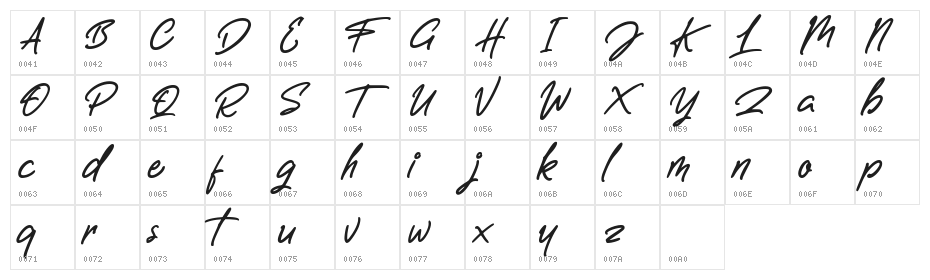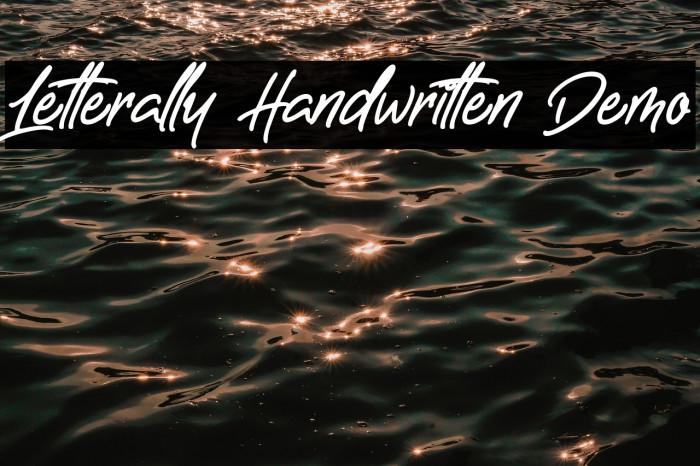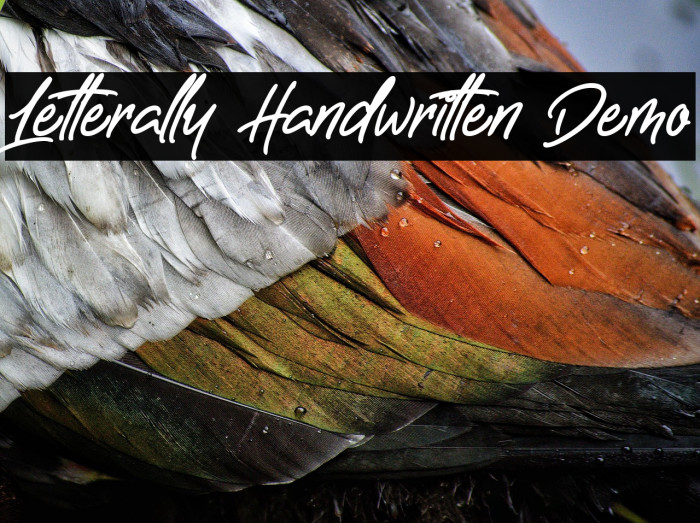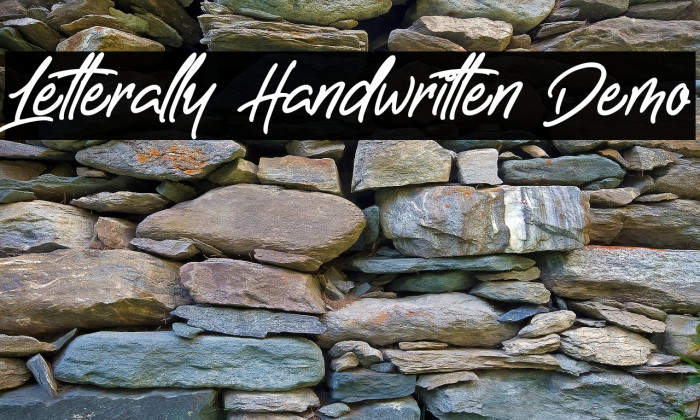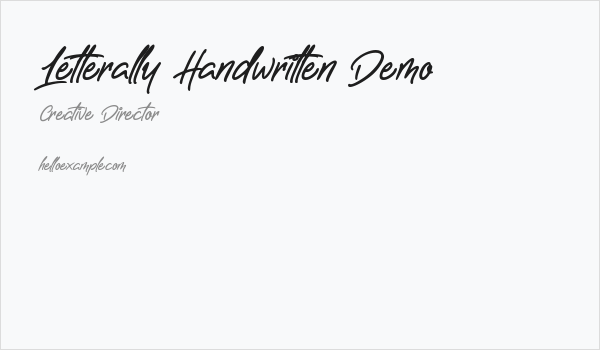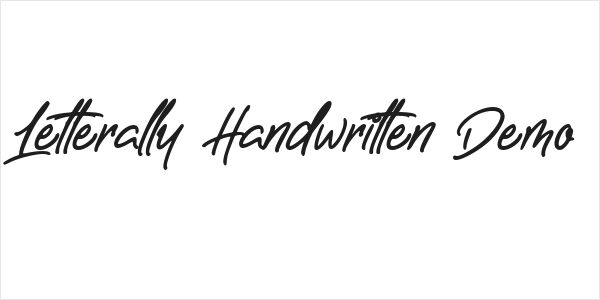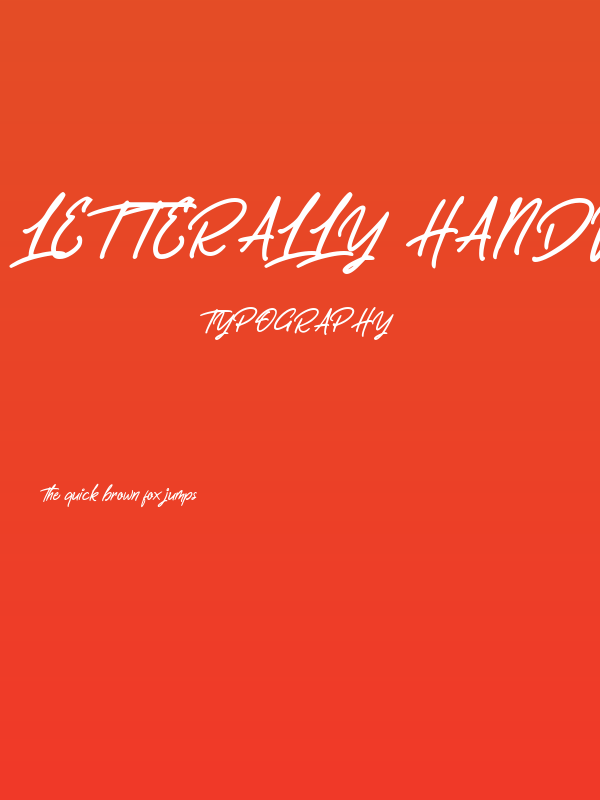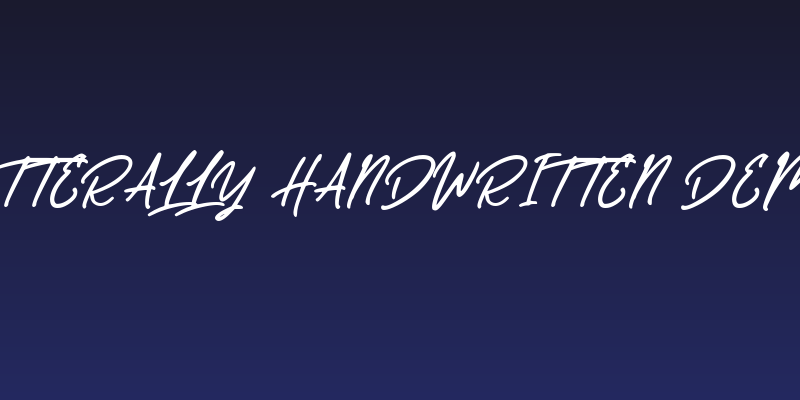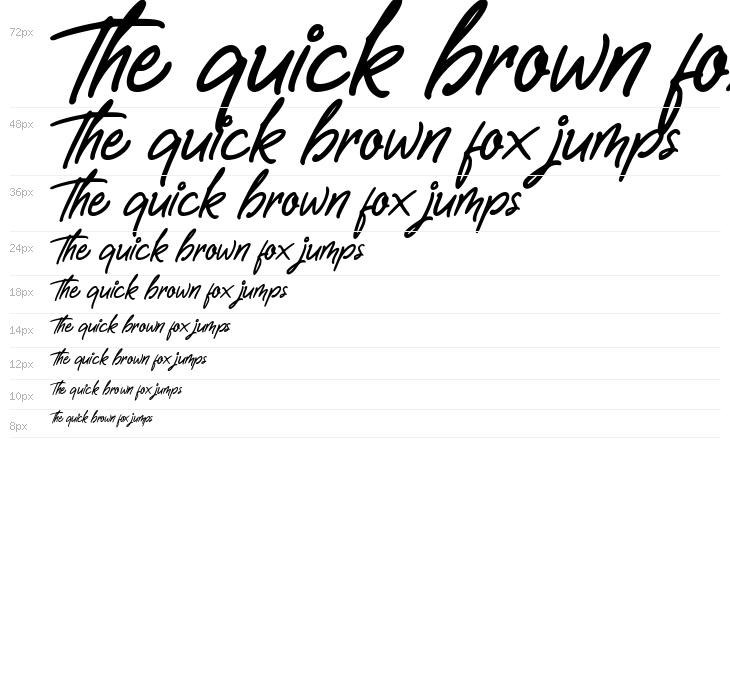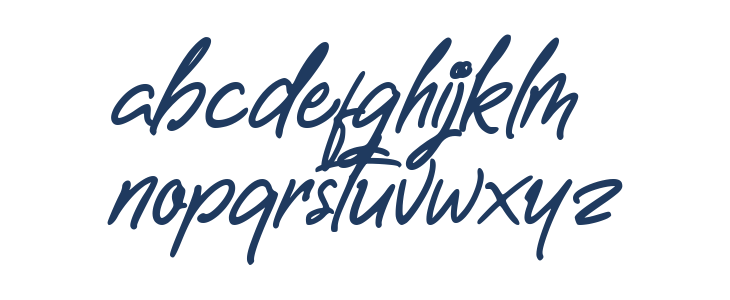
Letterally Handwritten Demo Font
Letterally Handwritten Demo Description
This font exudes a lively and dynamic handwritten style, characterized by its fluid and cursive strokes. The letters are connected in a way that mimics natural handwriting, giving it an authentic and personal touch. The uppercase and lowercase letters maintain a consistent flow, with some letters featuring distinctive loops and swirls that add to its charm. The boldness of the strokes varies, creating a sense of movement and energy. This font is perfect for projects that require a personal, informal, or artistic feel, such as invitations, greeting cards, or creative branding.